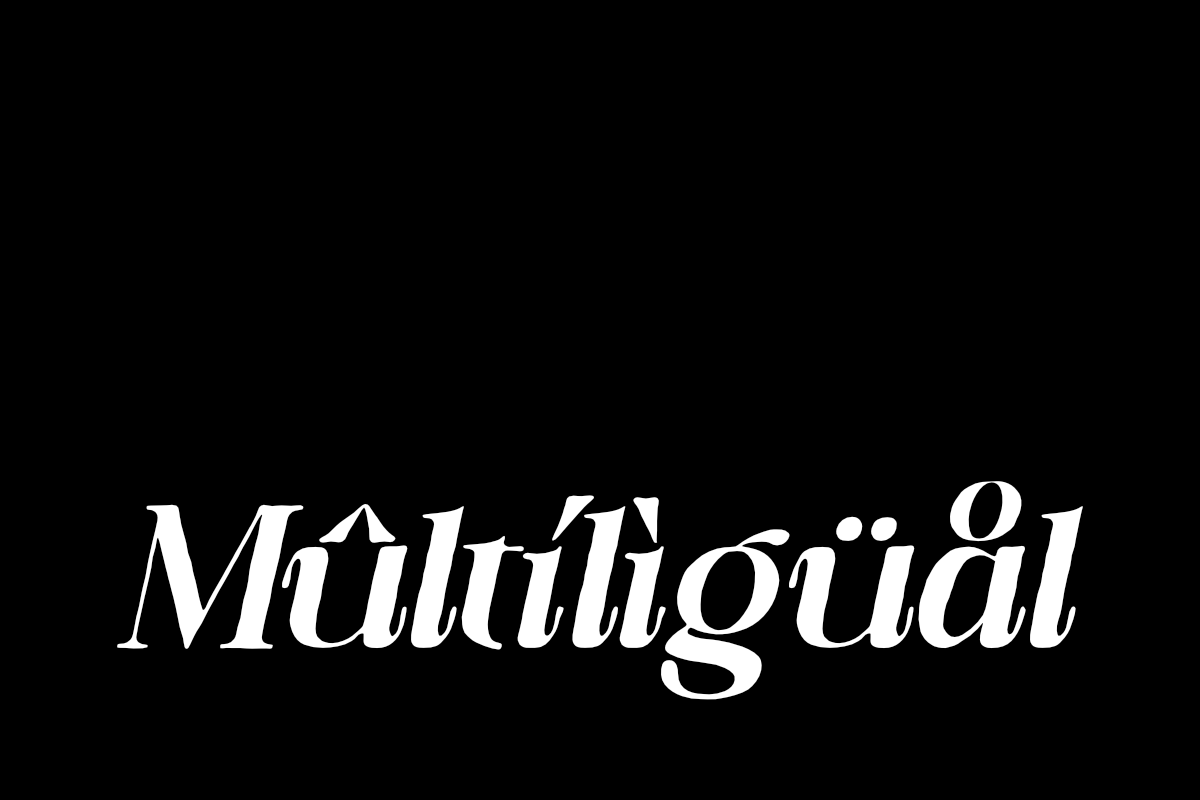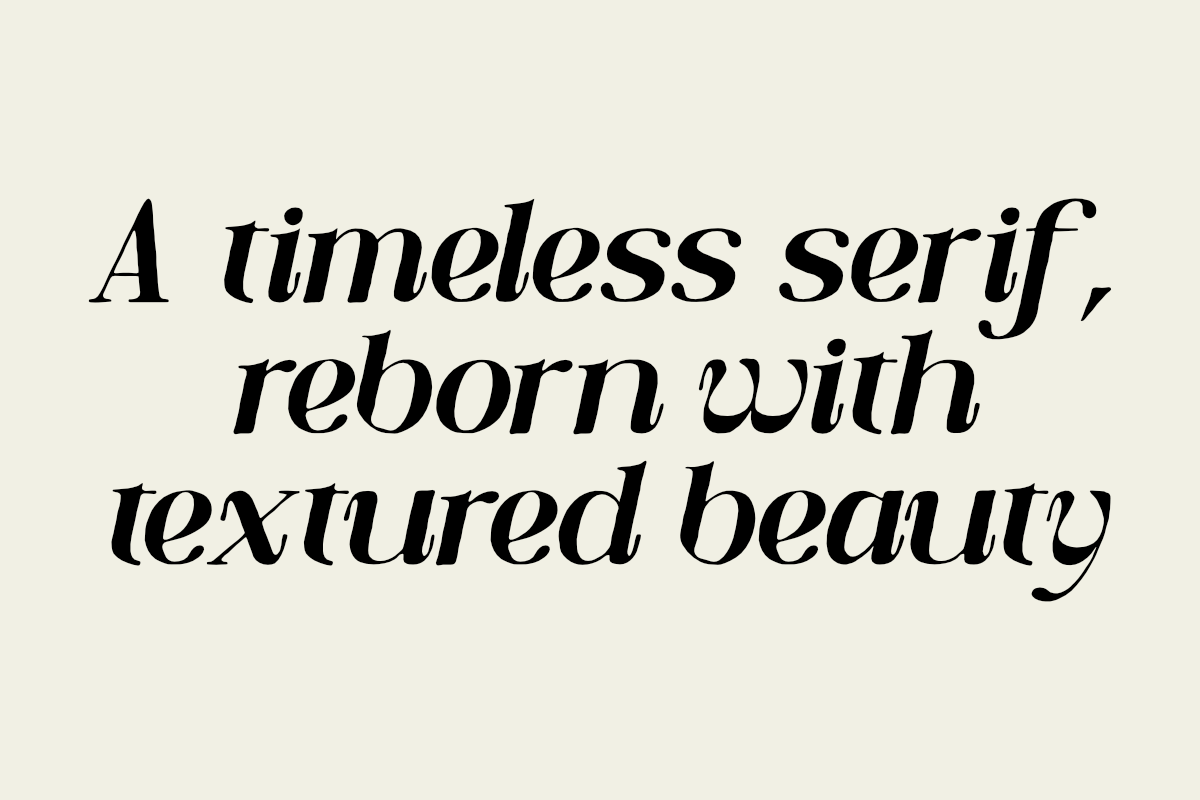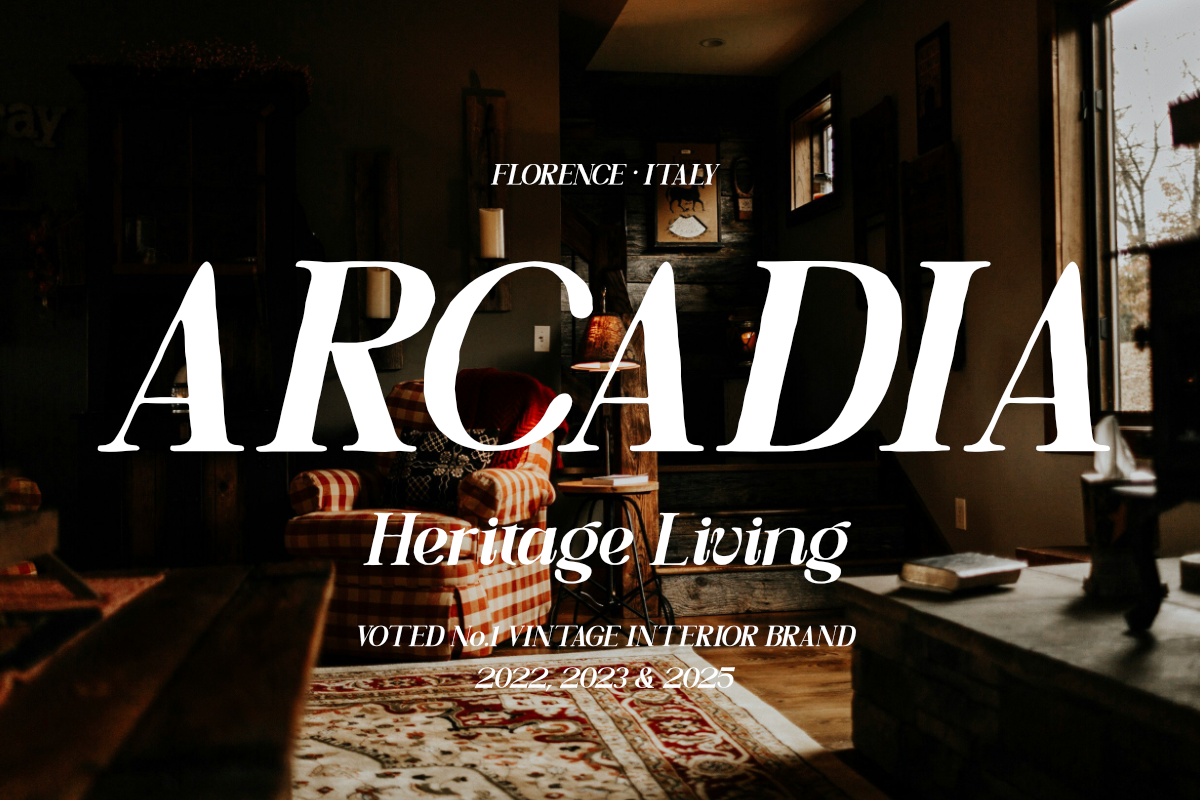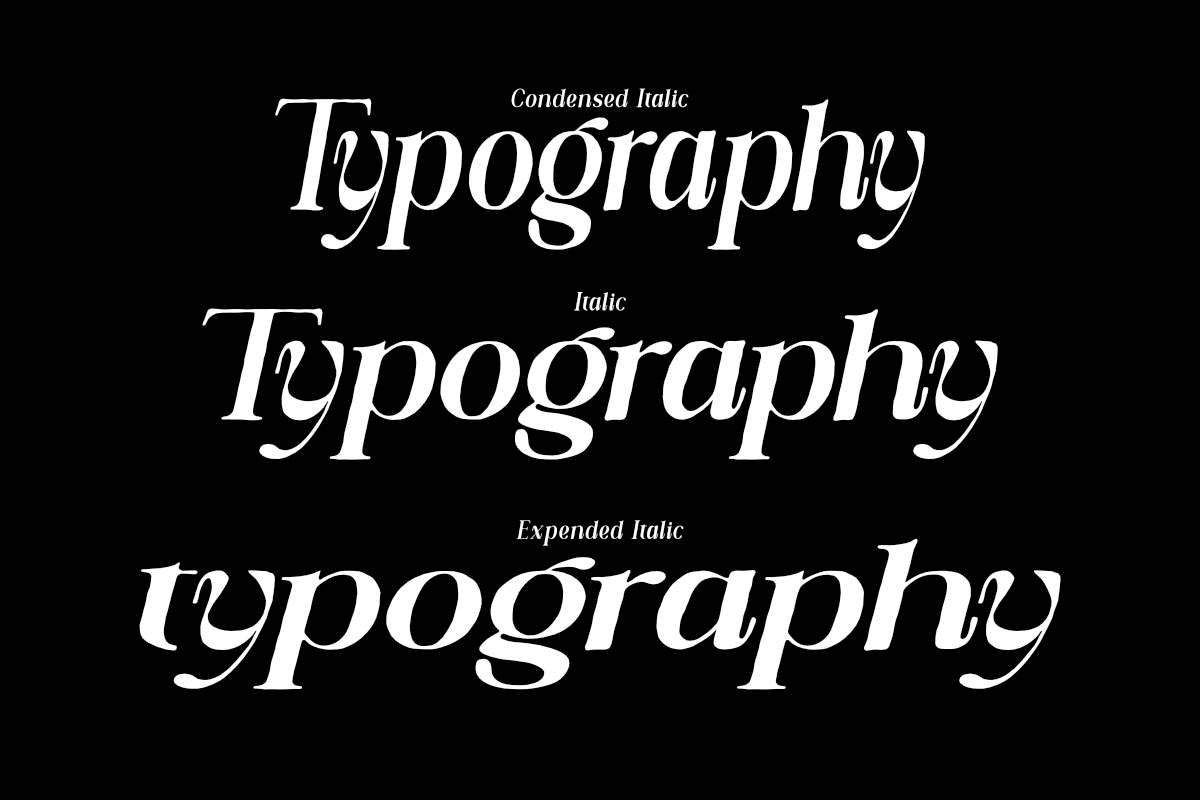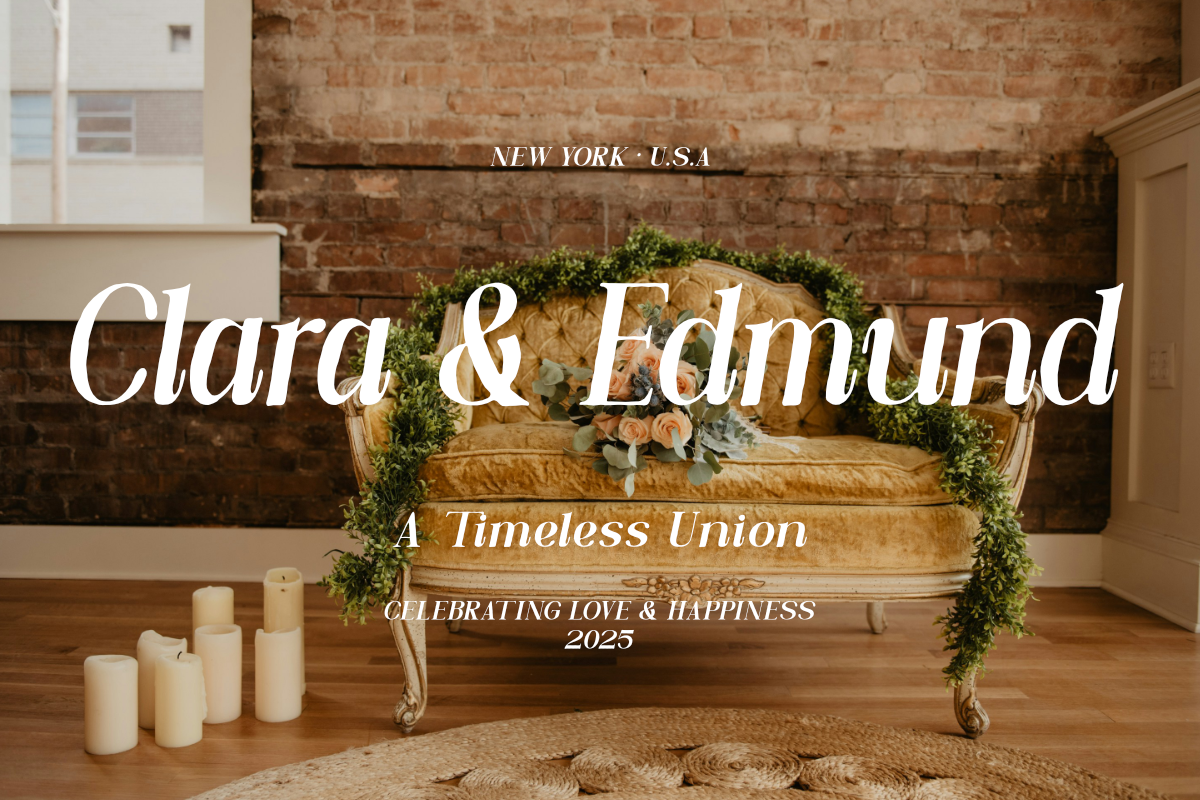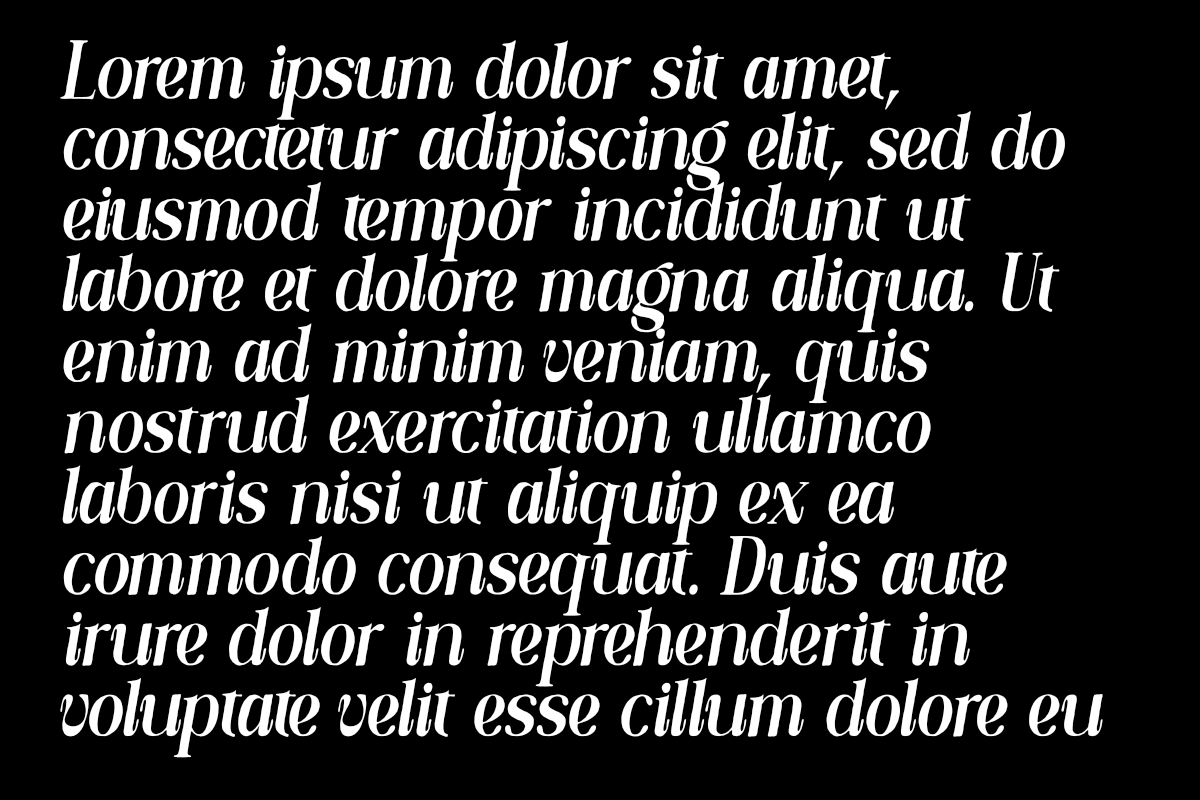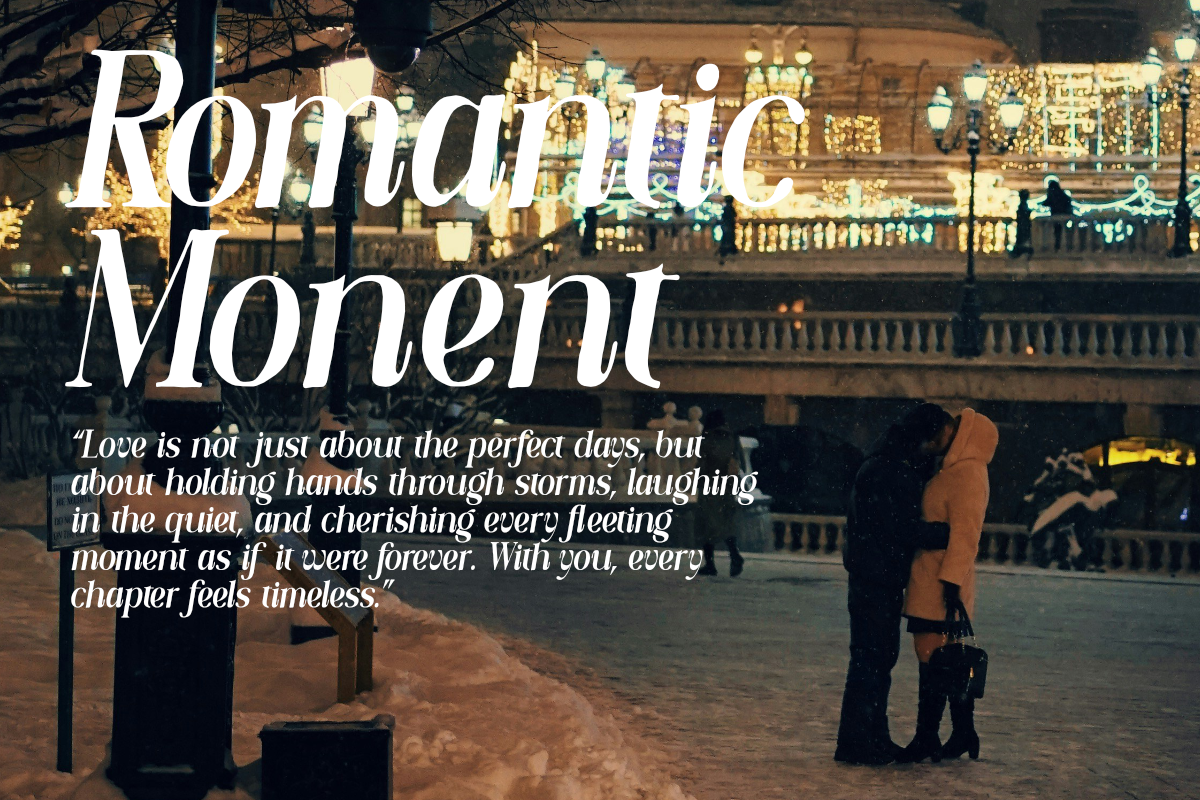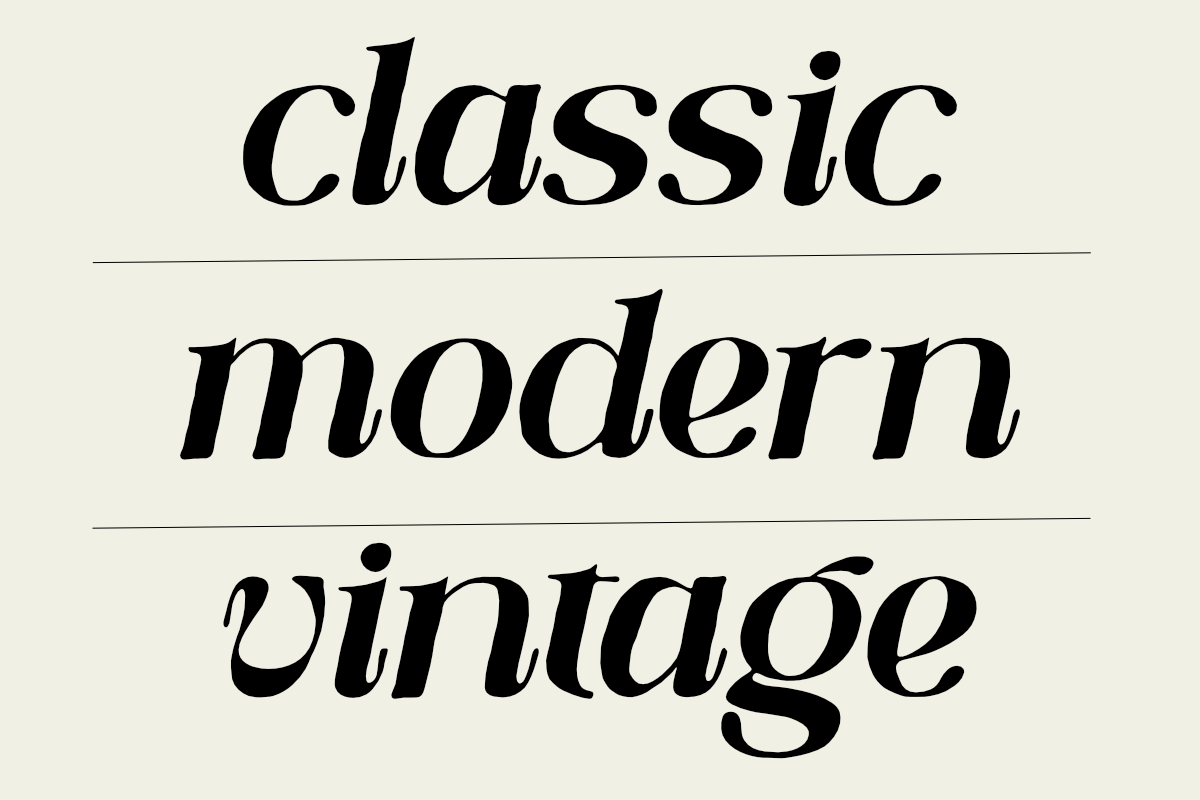
Callivora Condense Italic
Callivora Italic
Callivora Expended
Callivora – Textured Italic Serif Font
Meet Callivora, a textured italic serif font designed to bring elegance and warmth into every letter. With smooth curves and hand-drawn textured details, Callivora evokes a sense of romantic nostalgia while staying modern and versatile—making it the perfect choice for branding projects that seek artistry and timeless beauty.
✦ Key Features:
Lively Character: Subtle textures add depth and authenticity, giving your words a more emotional and handcrafted feel.
Classic Meets Contemporary: Elegant serif forms paired with italic flair capture a vintage spirit while remaining relevant for today’s design trends.
Versatile Use: Ideal for wedding invitations, luxury branding, editorial layouts, packaging, vintage posters, and artistic social media quotes.
✦ Perfect For:
Use Callivora to elevate brands and designs that want to stand out with exclusivity and emotion. Perfect for:
Wedding invitations & creative stationery
Luxury logos & boutique branding
Editorial design & magazine layouts
Premium or vintage product packaging
Romantic quotes for social media & artistic posters